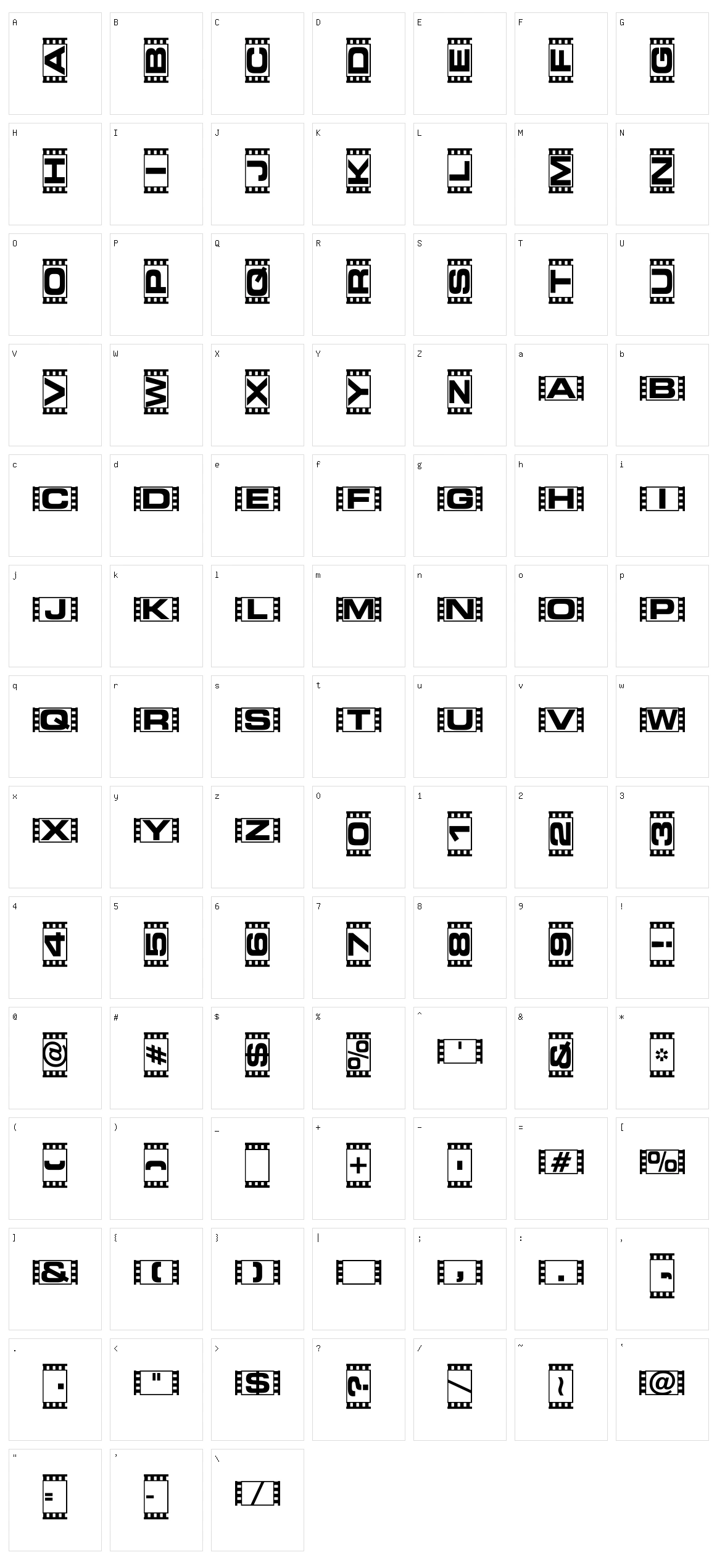
The computer fonts Vedette Blanche and Vedette Noire were created by Harold Lohner, 1999, and placed into the public domain by him.
To created the effect of letters in movie-film frames, simply type your text in all caps, then the turn the text block (or page) 90° clockwise.
At the lowercase postion, the letters are turned horizontally.
At the underscore is a blank frame.